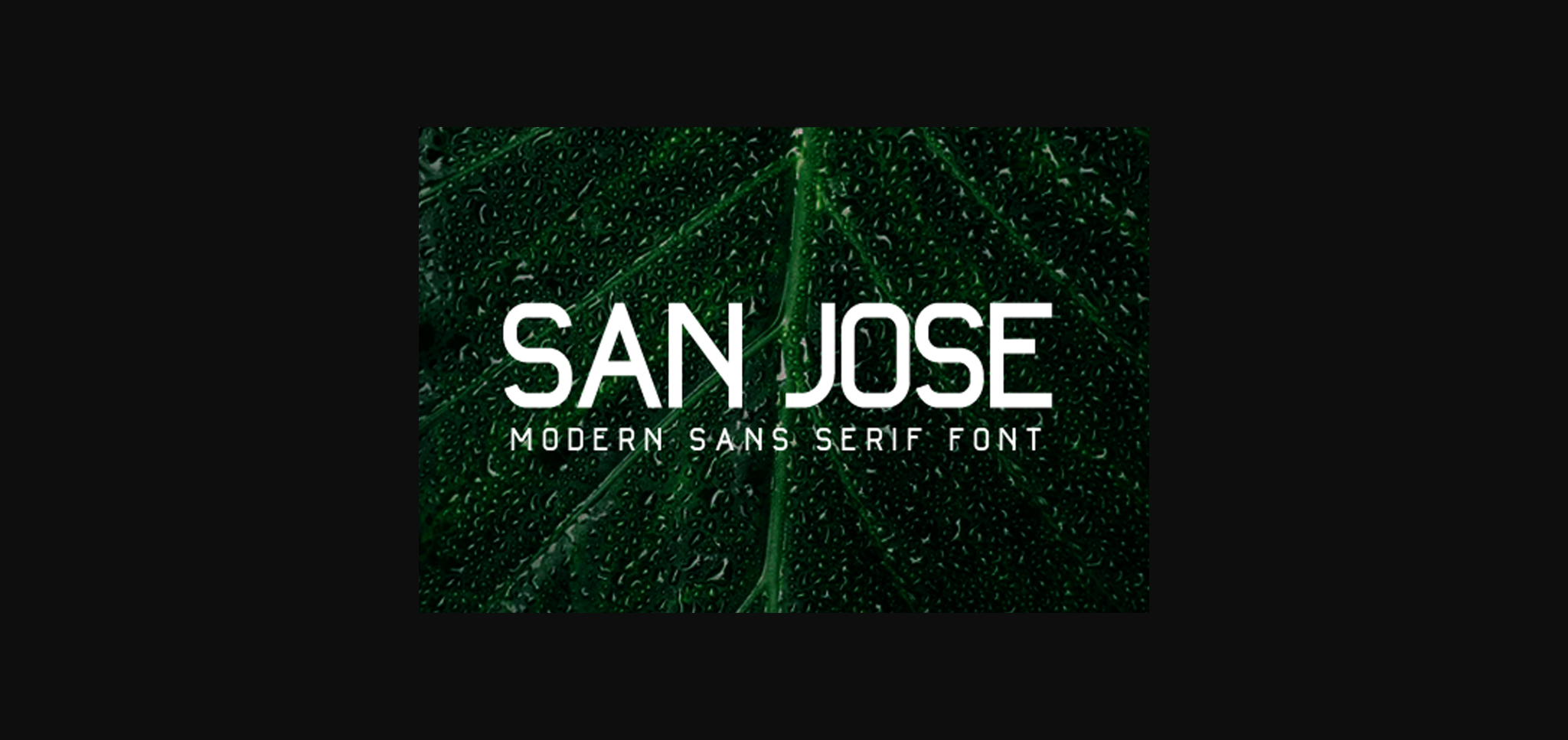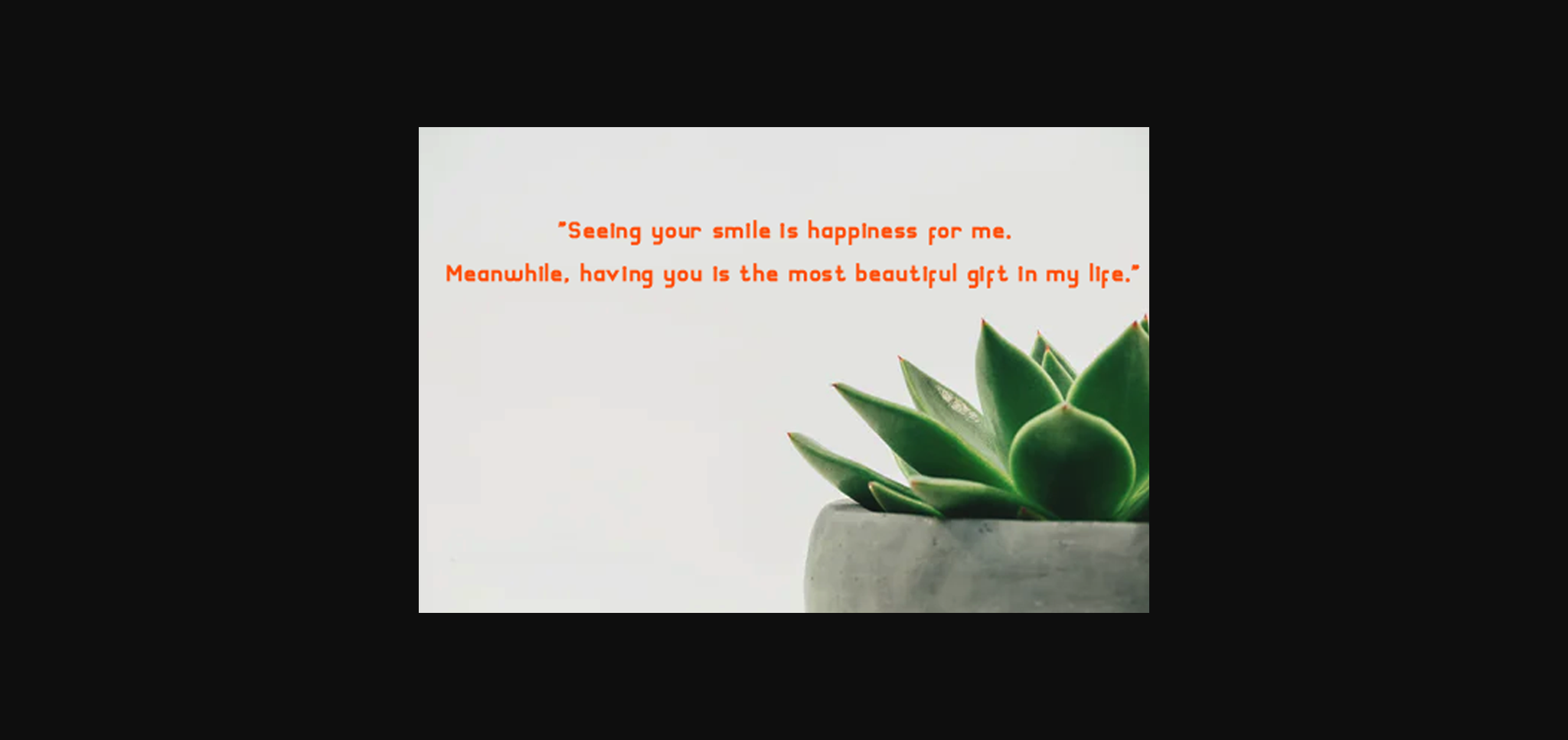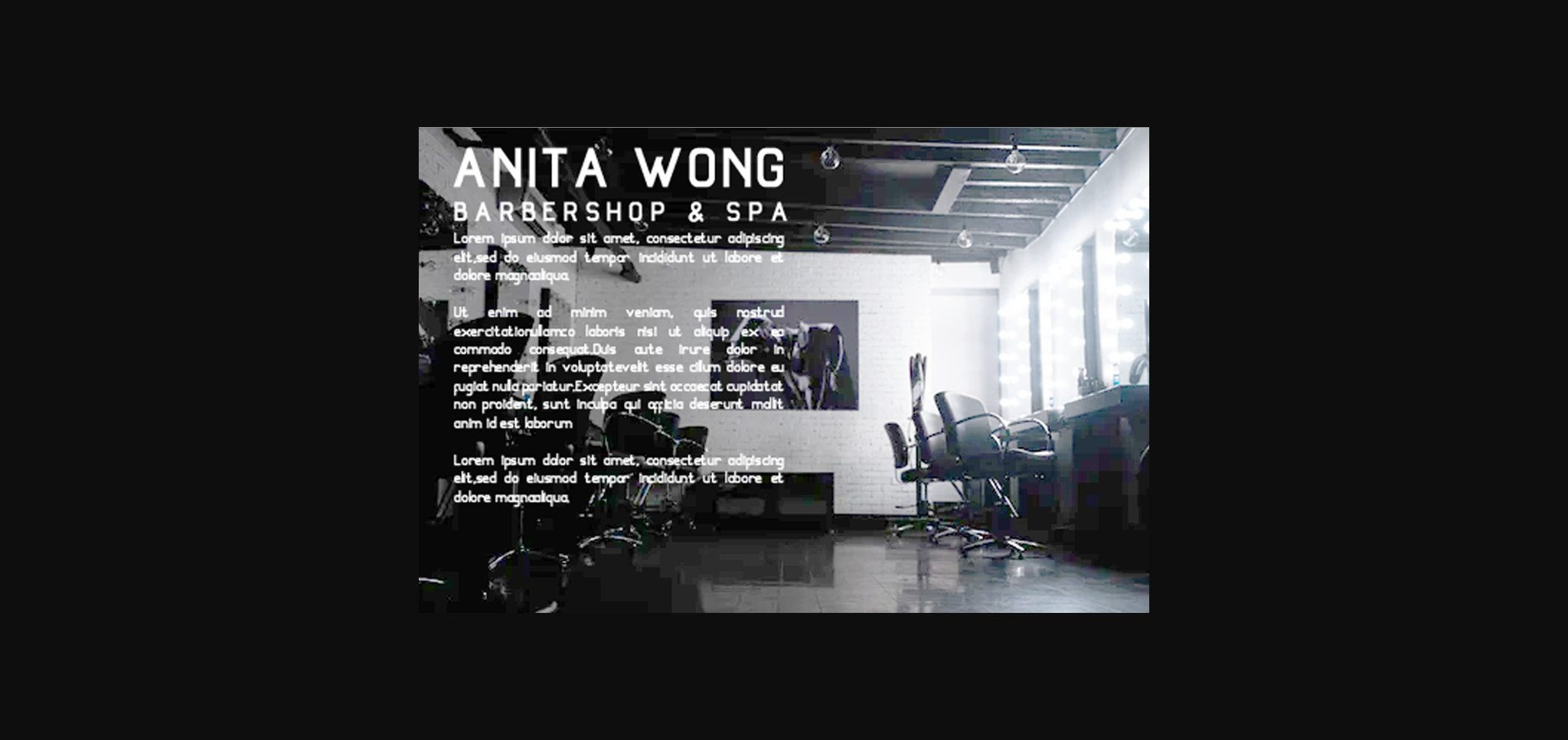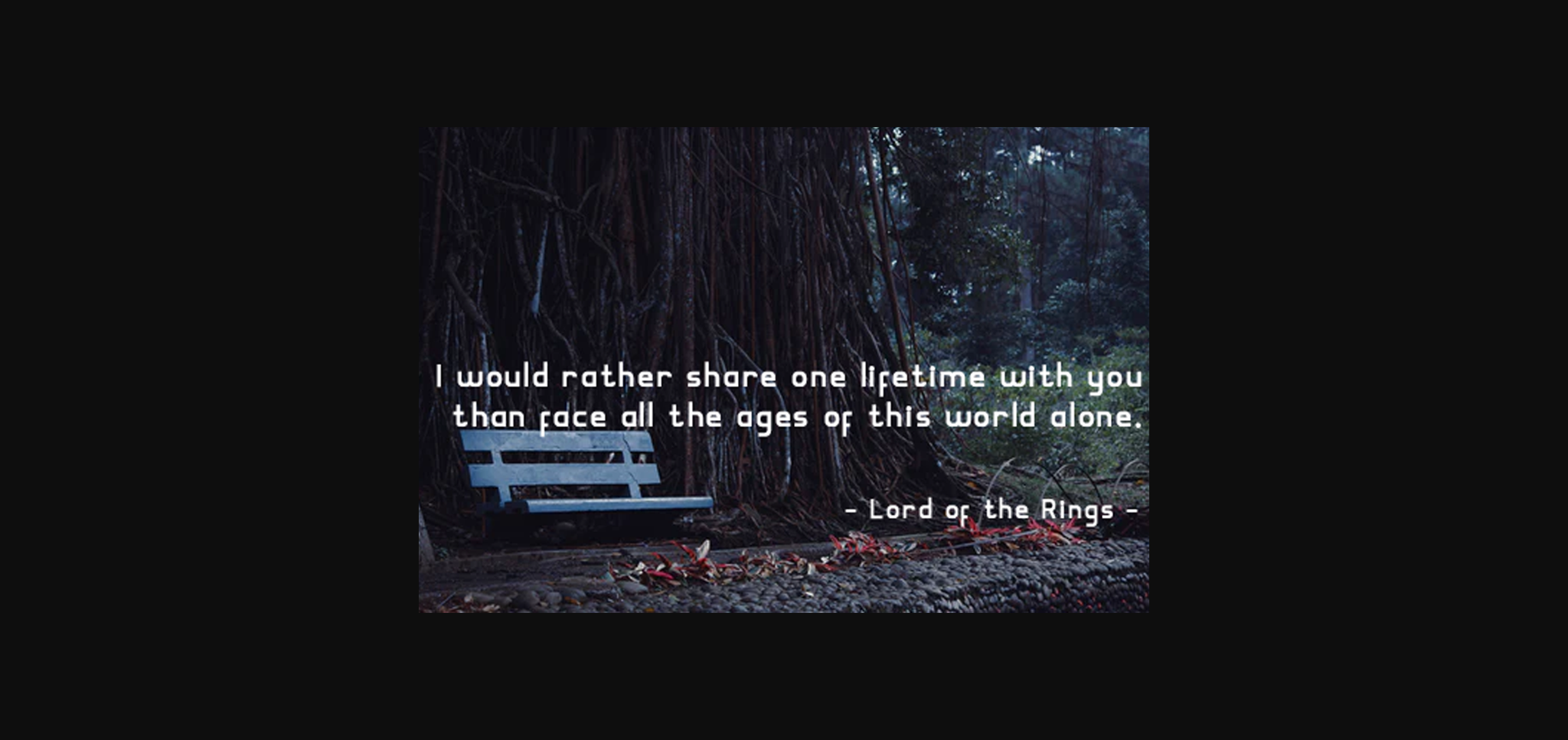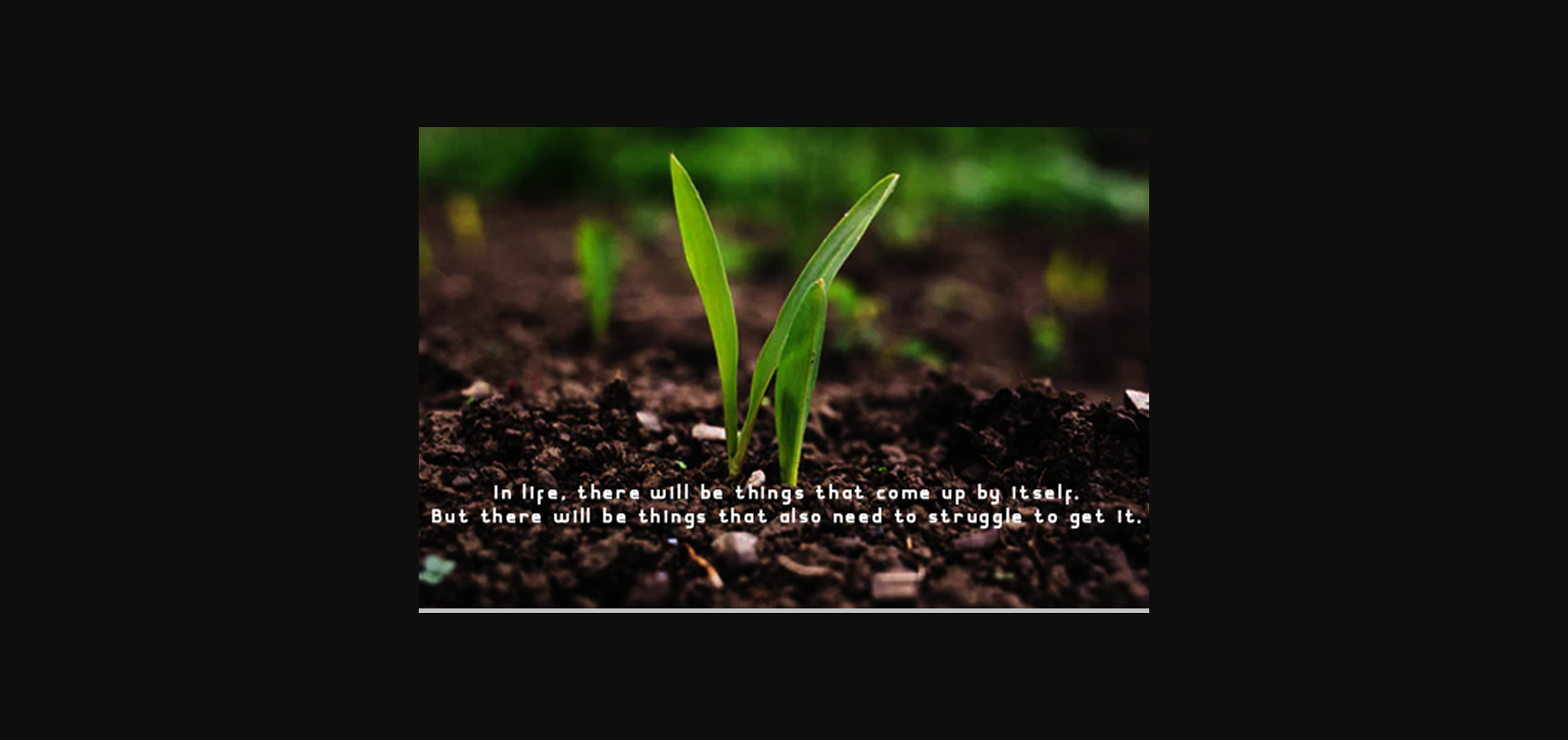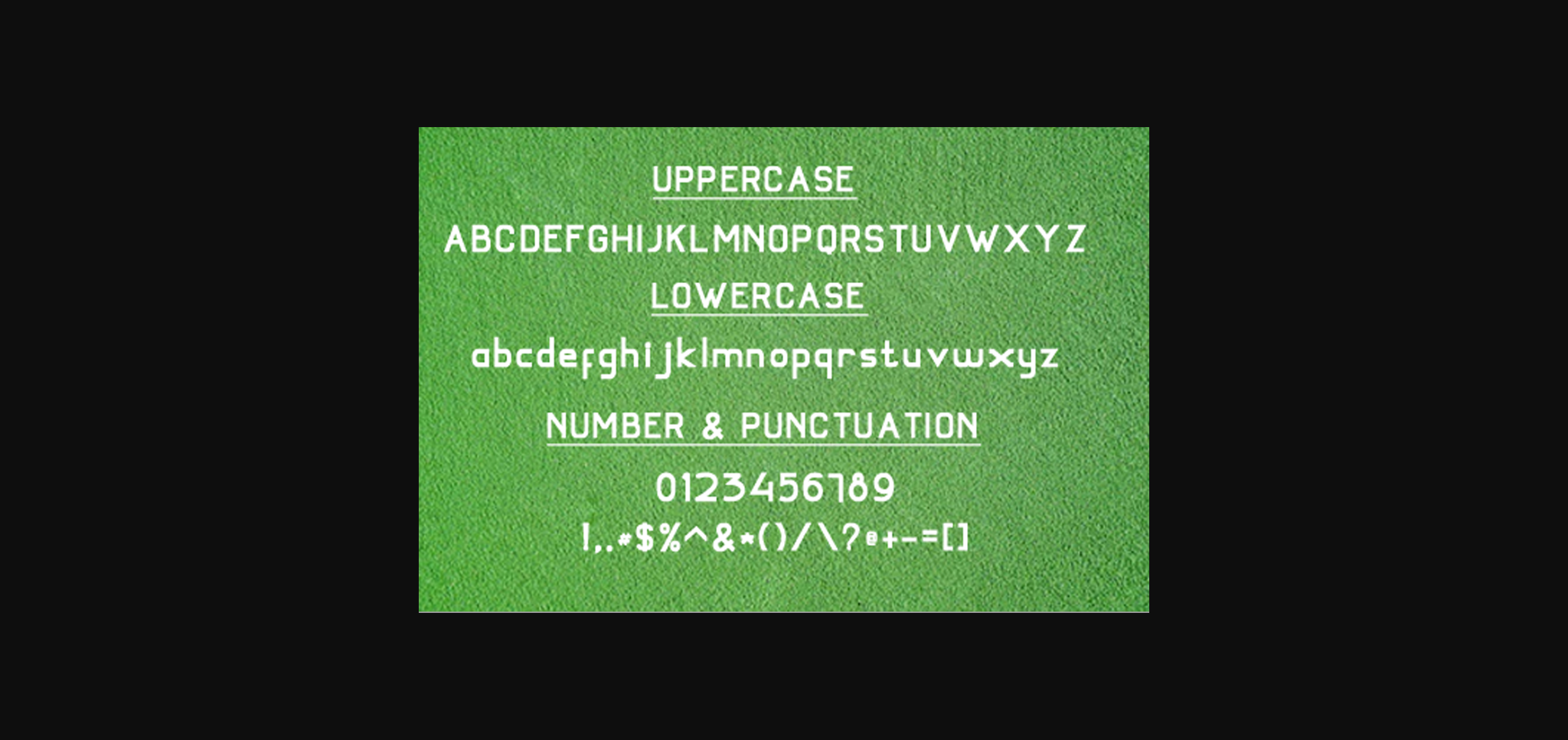
San Jose is a clean and simple sans serif font. It can effortlessly be matched to an incredibly large set of projects, so add it to your creative ideas and notice how it makes them stand out!